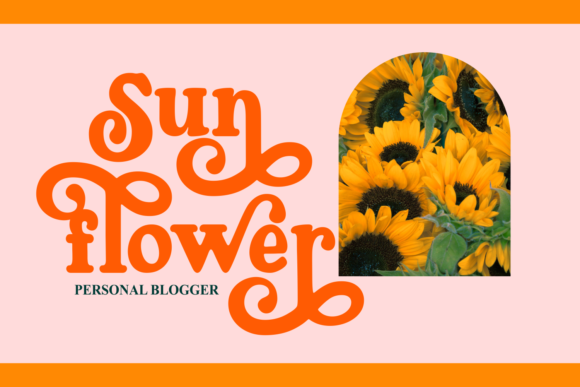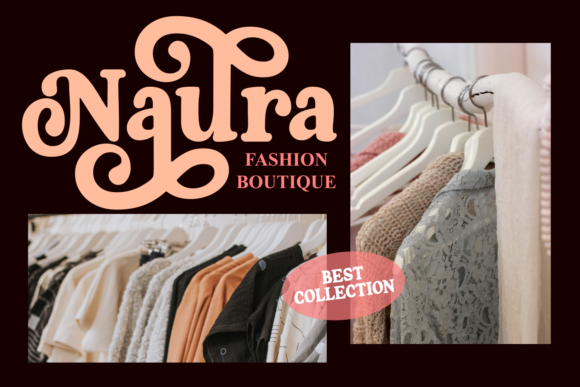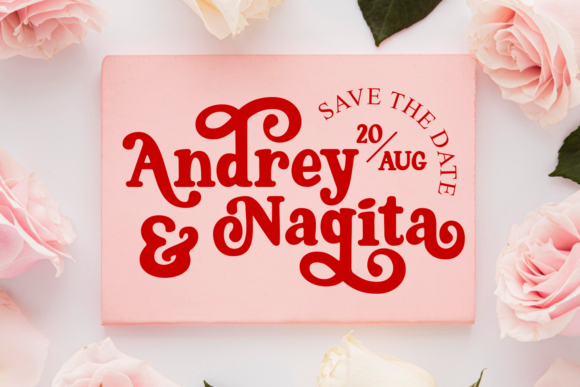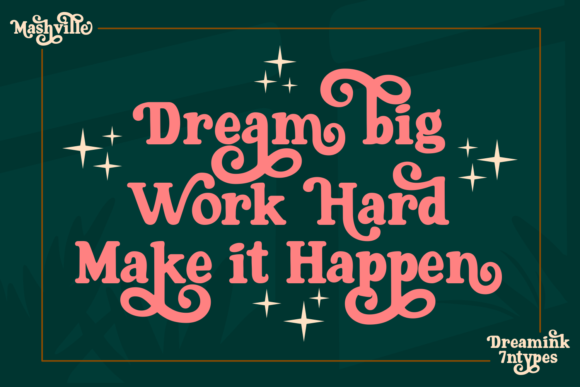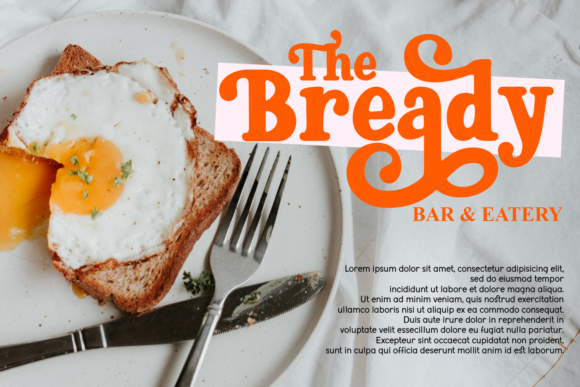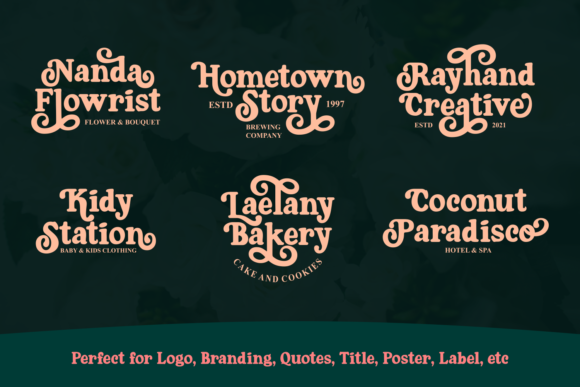
Introduction to Mashville Font
Mashville is a casual serif font.
Simple and easy to use, this font will be very beautiful if you mix it with your various craft designs This font is PUA encoded which means you can access all of the glyphs and swashes with ease.